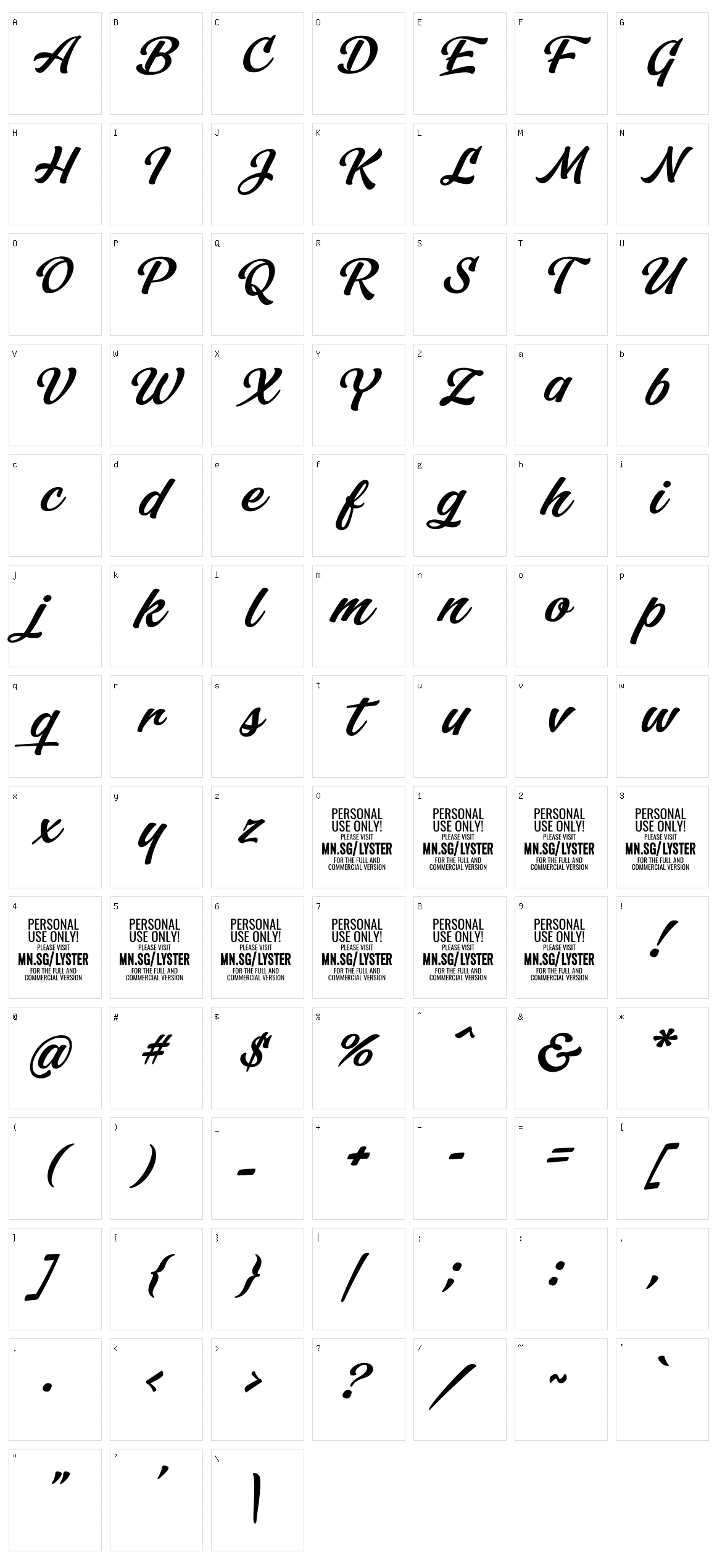
Lyster is a hand-painted script typeface, built and created by Måns Grebäck in 2020.
Its brush strokes makes the typeface the ultimate blend between modern and classic.
The balanced weight and tilt result in velocity, flow and a friendly but energetic vibe.
Lyster comes as Lyster Regular and Lyster Bold, and each style contains a full OpenType compatible alternate alphabet and ligatures.
The font contains all characters you'll ever need, including all punctuation and numbers.
It has an extensive lingual support, covering all Latin-based, European languages.